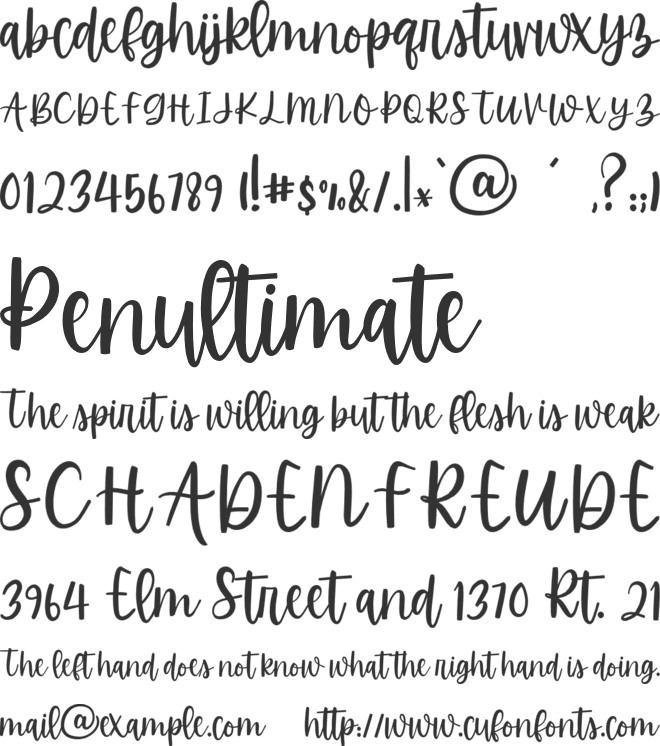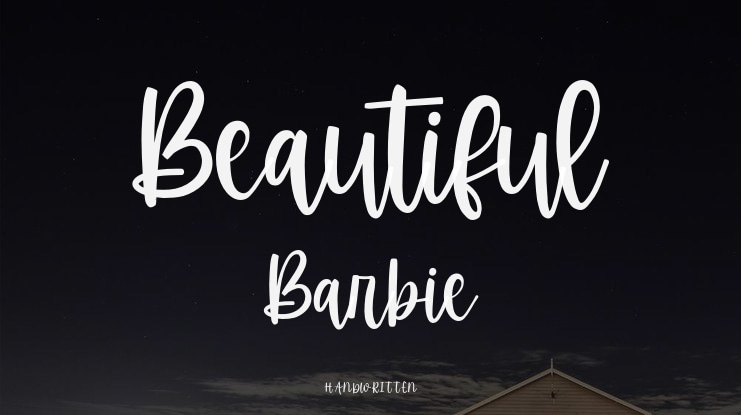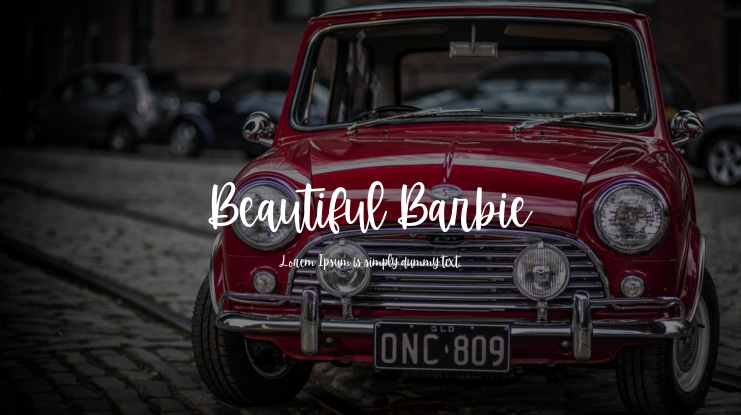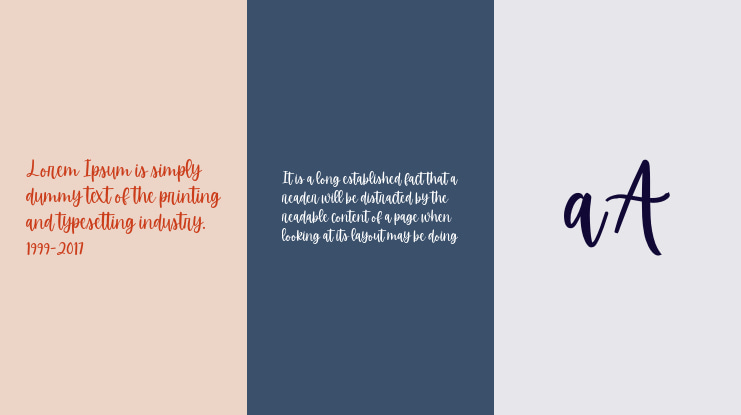
Beautiful Barbie Font
Our special creative products offer an extraordinary experience. The latest stylish fonts are ideal for various uses such as wall displays, wedding invitations, logos for social media posts, advertisements, product packaging, labels, photography, watermarks, invitations, stationery, and any project requiring elegant handwriting. For licensing and inquiries, please visit: https://www.creativefabrica.com/ref/399088/gmail or contact us at .